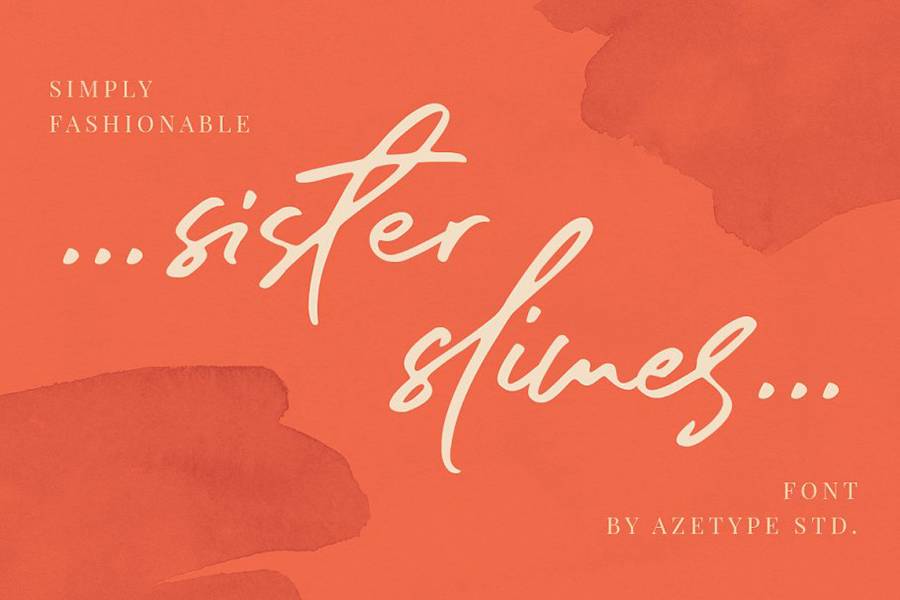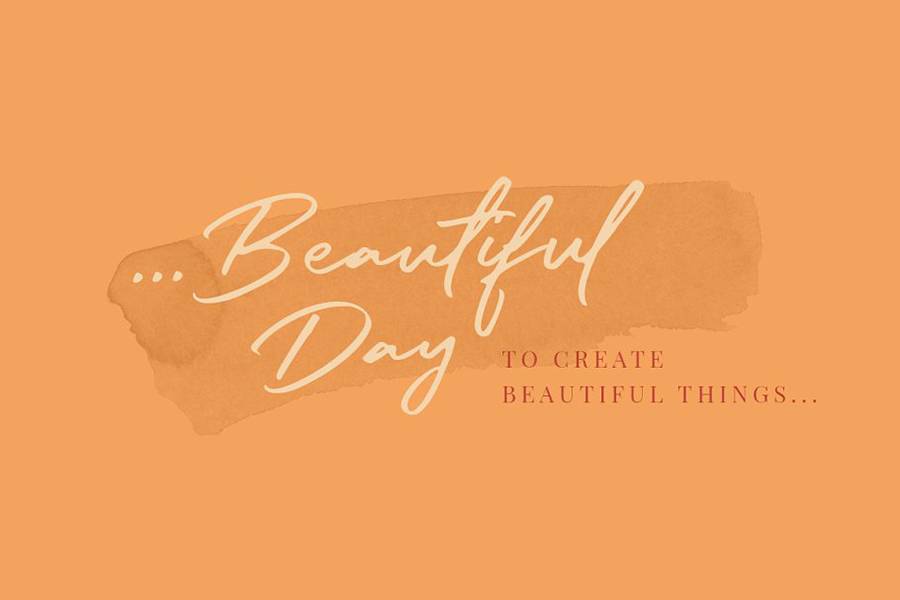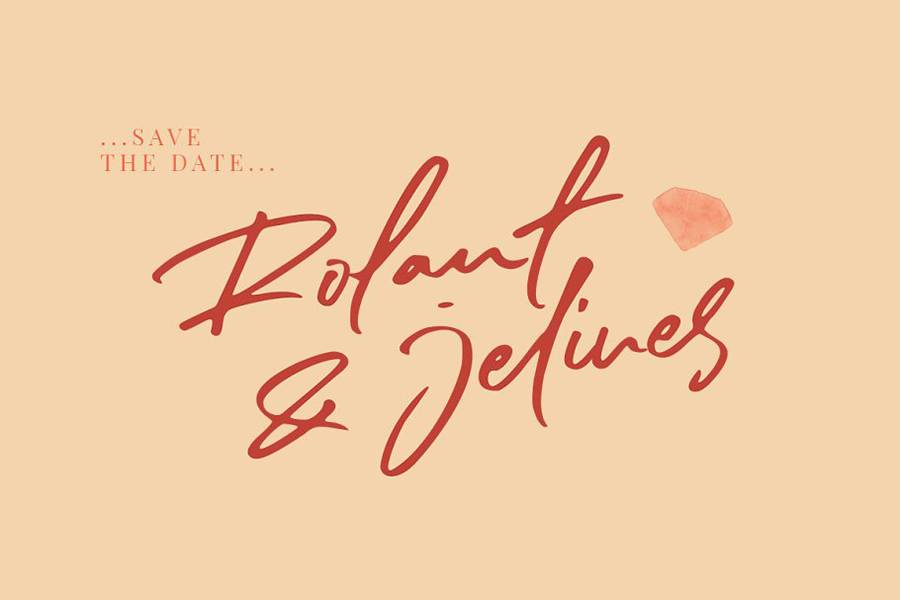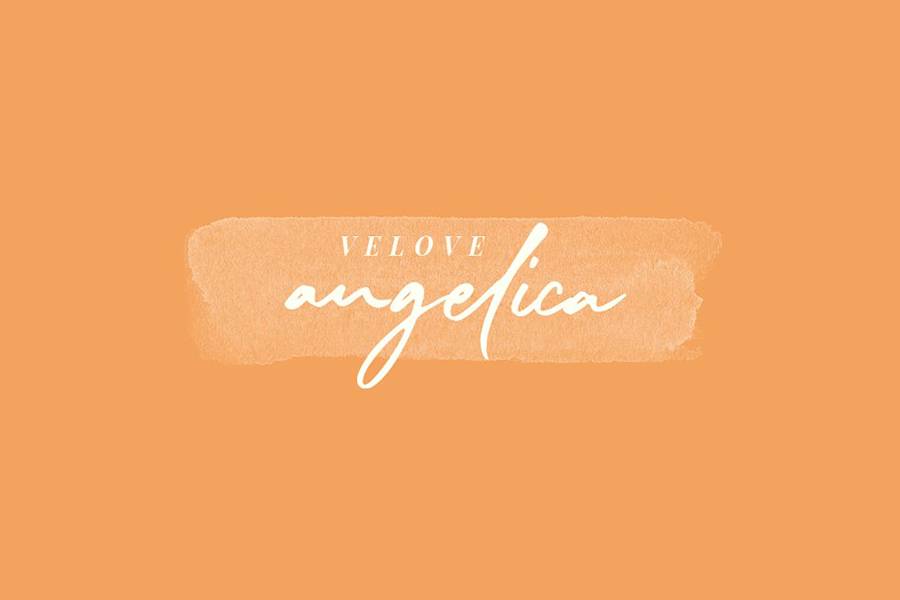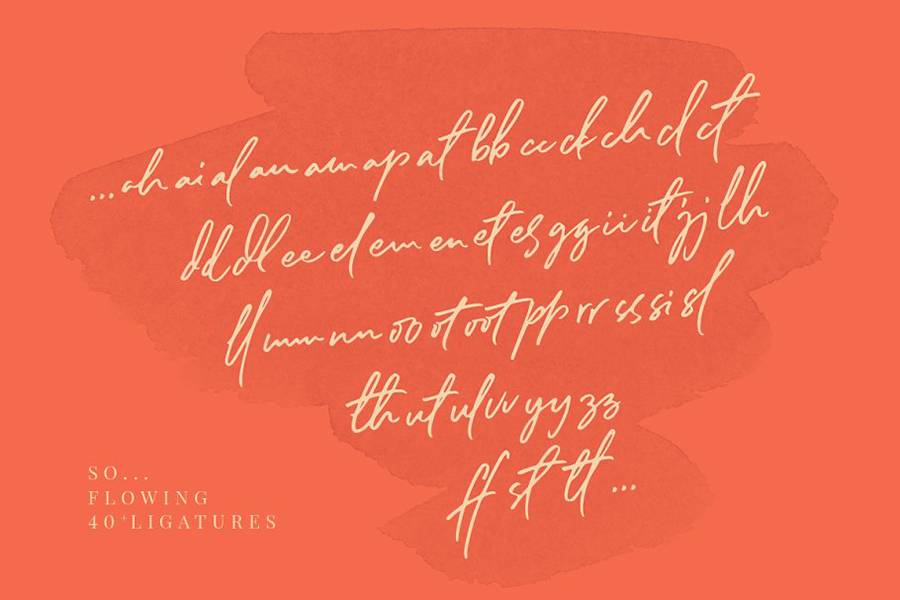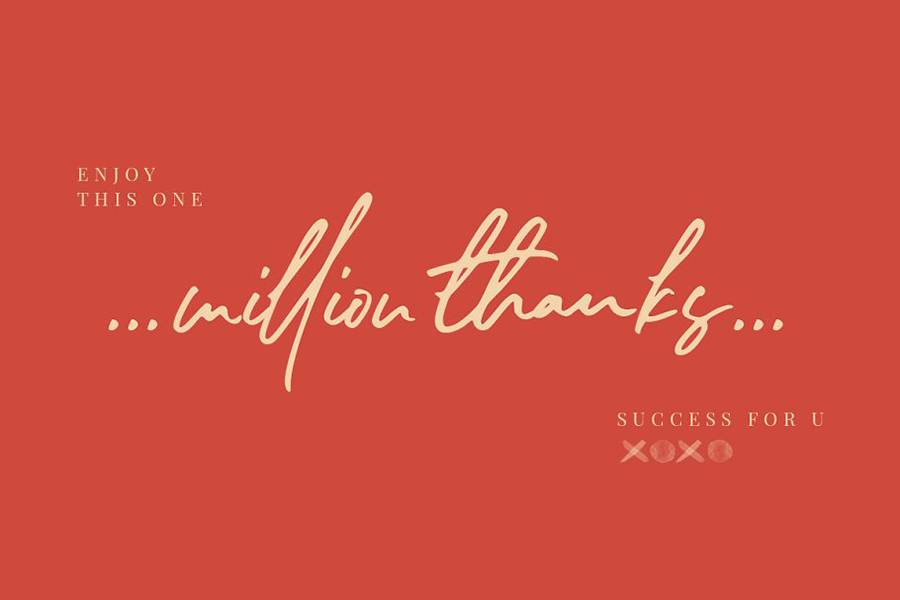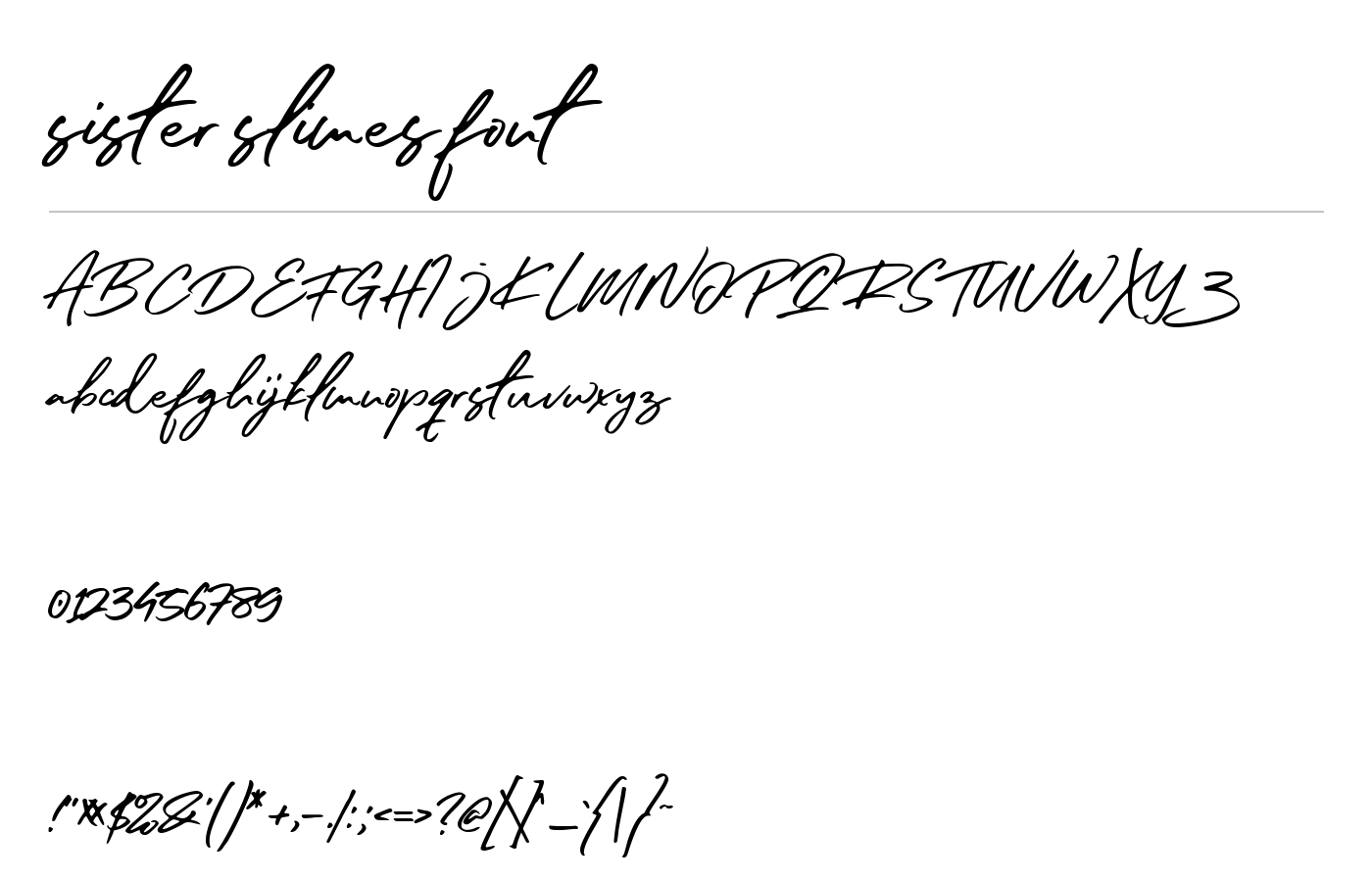
Sister Slimes Script is a lively and expressive handwritten font featuring fluid, slightly irregular strokes that give it a natural, personal touch. With its tall, narrow letterforms and dynamic rhythm, it conveys a casual yet stylish vibe that works beautifully for creative branding, invitations, and playful headlines. This font’s energetic style adds personality and charm, making it ideal for projects seeking a modern, informal, and artistic feel.
Sister Slimes Script Font
About Sister Slimes Script Font
| Font family | Sister Slimes Script Font |
| Release date | 2019-08-08 |
| Designer | Muh. Aswar from Azetype Studio |